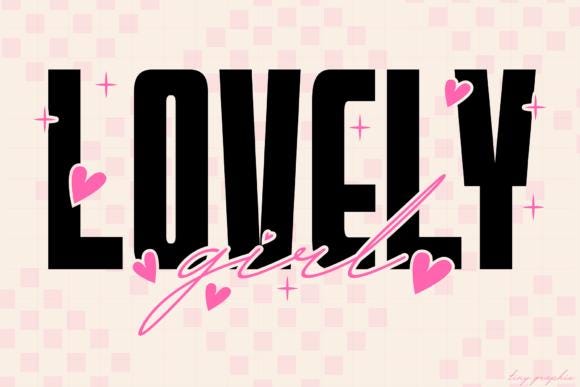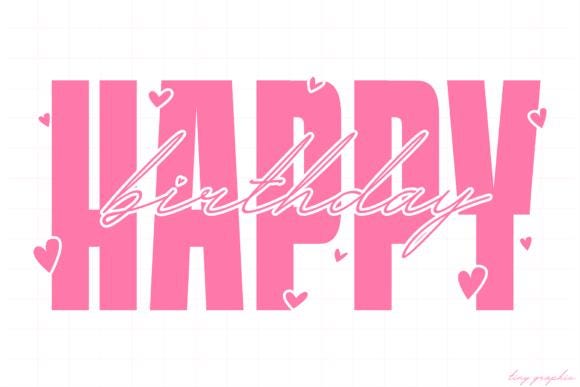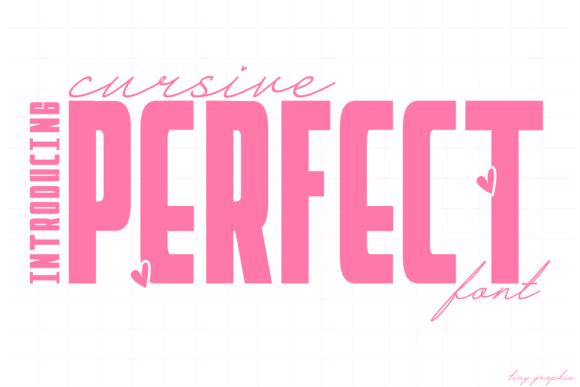
Perfect Cursive Font
Perfect Cursive and Perfect Duo – A Stylish Duo Font with Bold Attitude and Elegant Flair
Introducing Perfect Cursive – Perfect Duo, a striking font duo that blends bold modernity with delicate handwritten charm. Crafted by Tiny Graphix, this pairing offers a unique mix of strength and softness—perfect for a wide range of creative projects.
Perfect Duo a bold, tall uppercase and lowercase style with sharp cuts and geometric flair. With its dynamic look and confident character set—including numbers and symbols—this font is ideal for headlines, branding, posters, and statement-making designs.
Perfect Cursive the elegant script counterpart, is a flowing, handwritten-style font with graceful loops and refined strokes. It brings a personal, romantic touch to invitations, social media graphics, packaging, and more.
Whether you're designing for love, celebration, or personal expression, Perfect Cursive – Perfect Duo offers the perfect combination of strength and elegance to elevate your work.